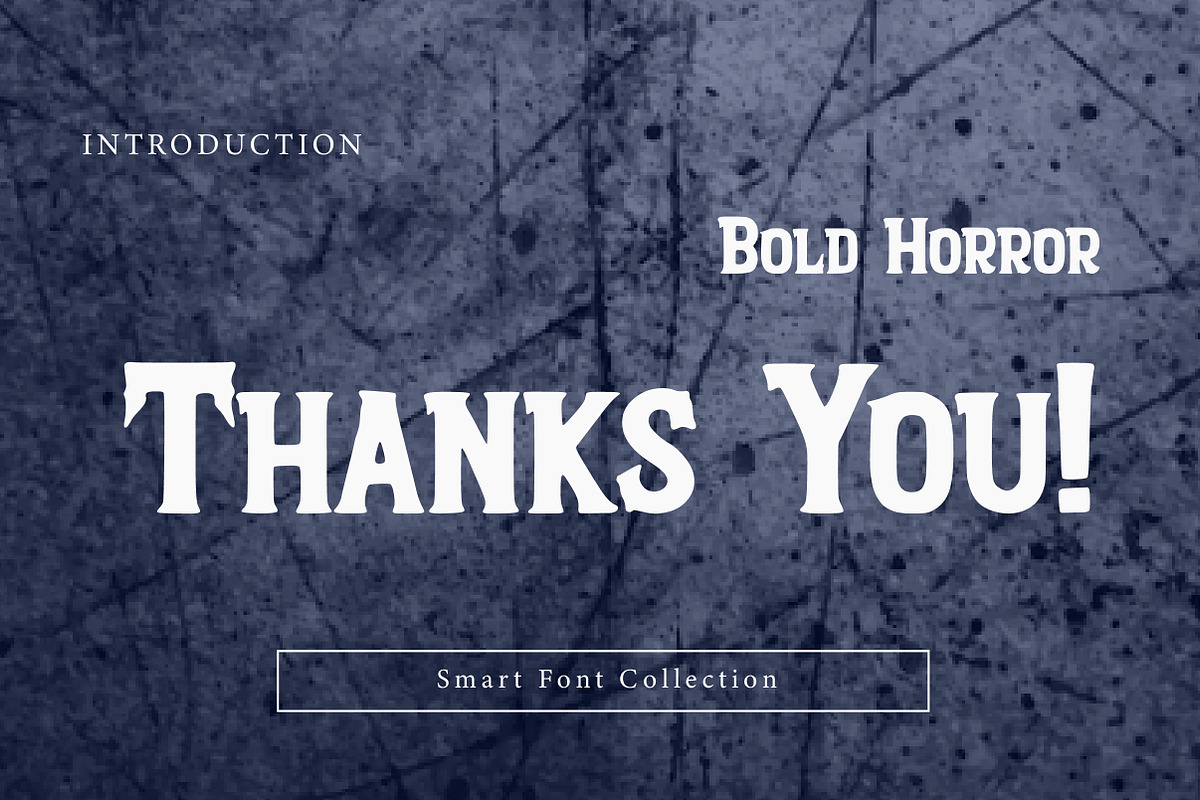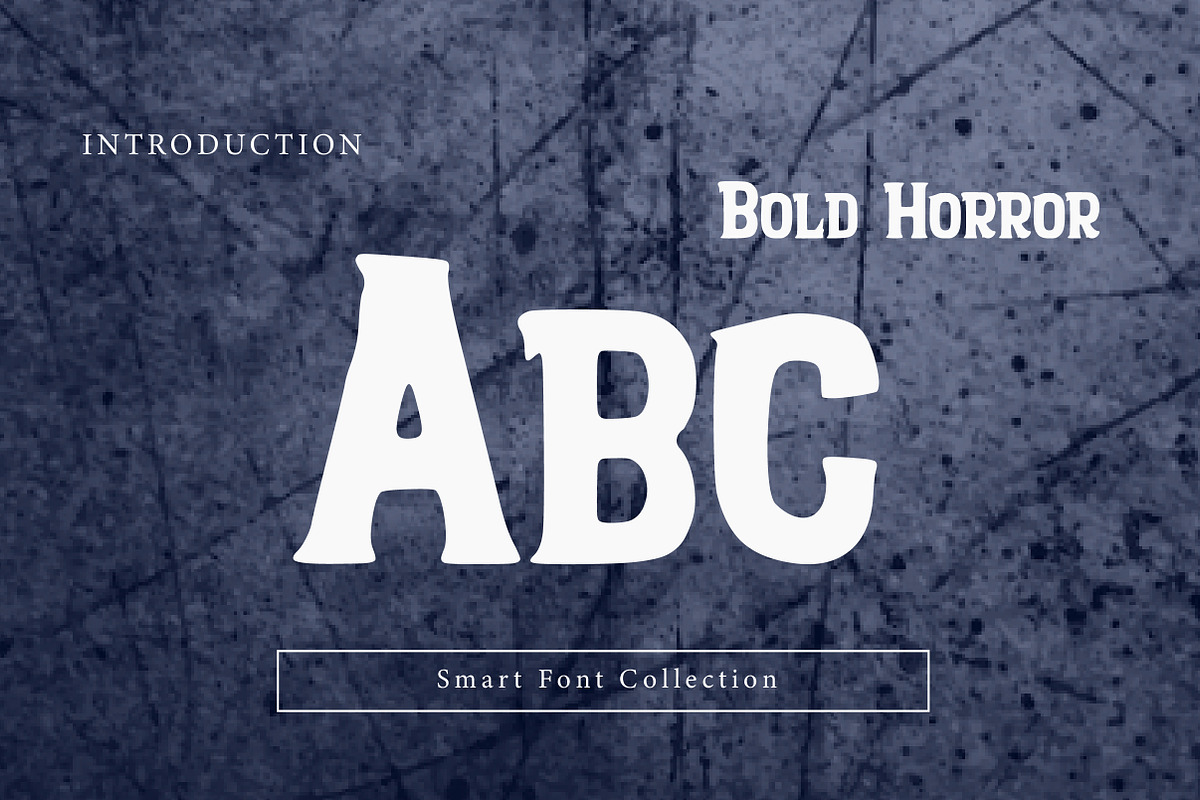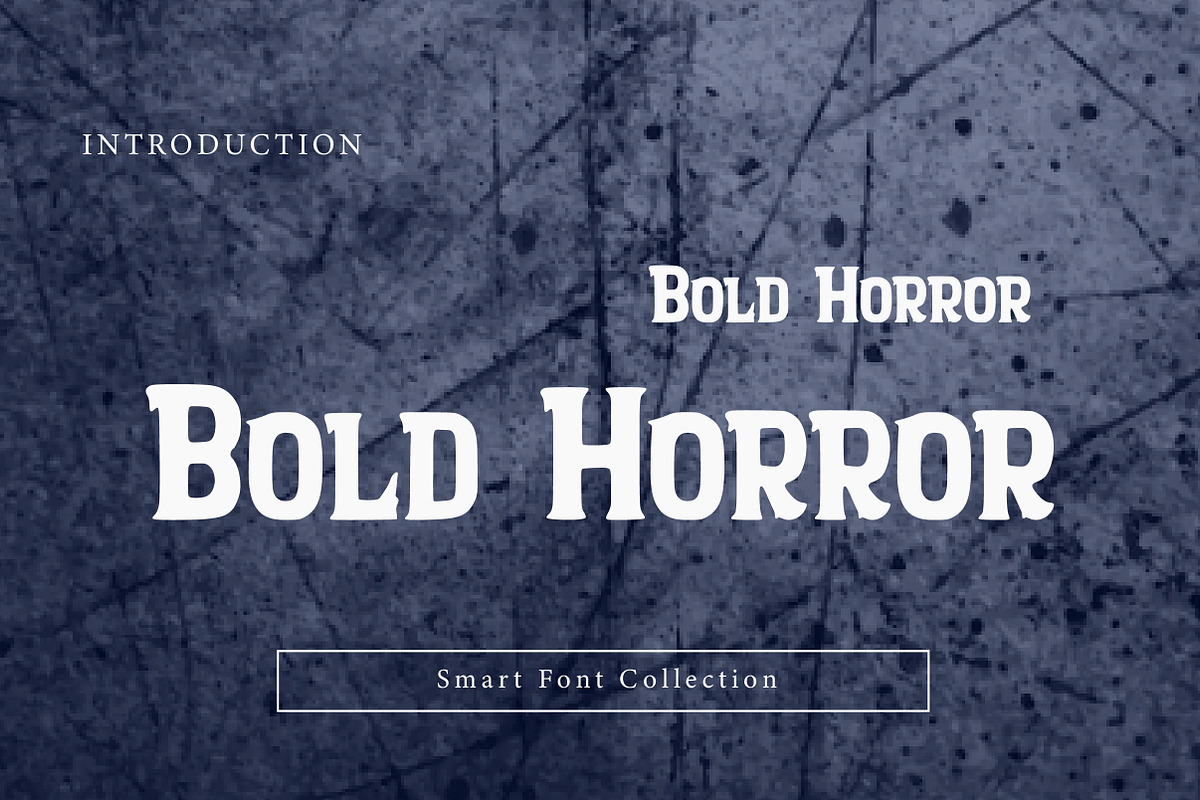
Bold Horror
Bold Horror is a heavy, dramatic horror display font with thick strokes, sharp edges, and an eerie vintage tone. Its bold presence and unsettling character make it perfect for horror posters, movie titles, Halloween designs, book covers, logos, branding, album covers, and spooky headlines. Bold Horror delivers fear, intensity, and strong visual impact at any size.